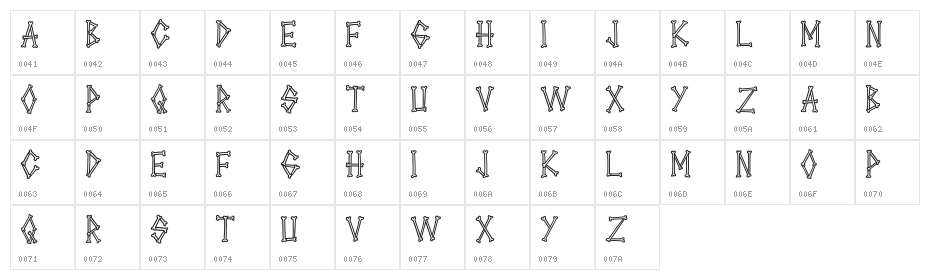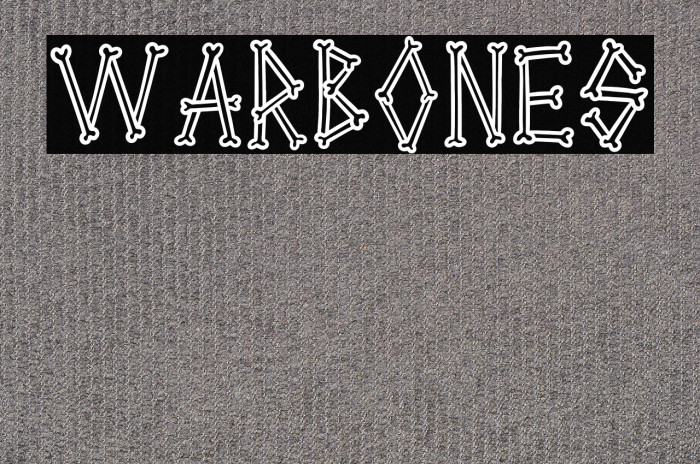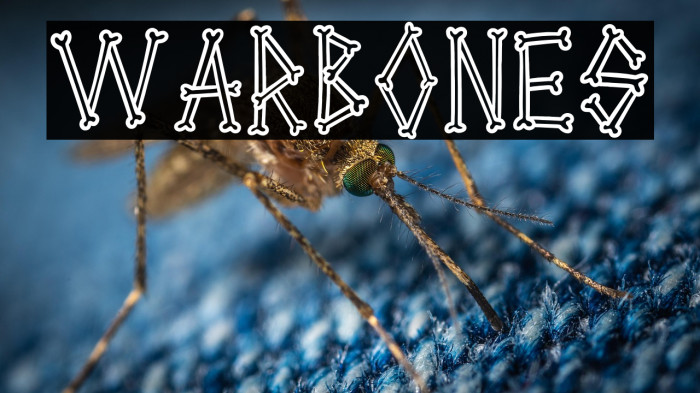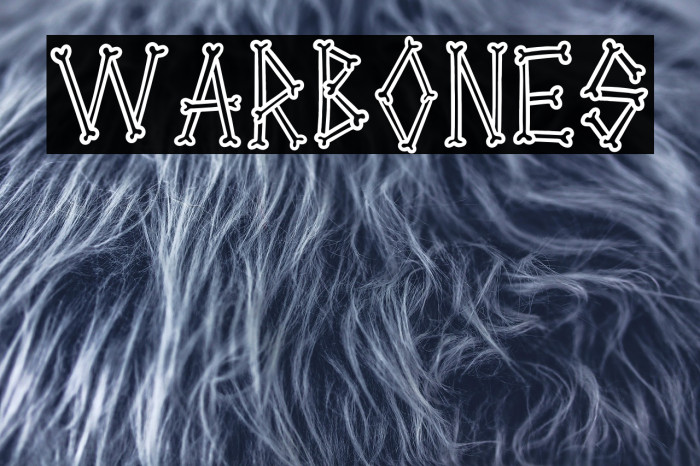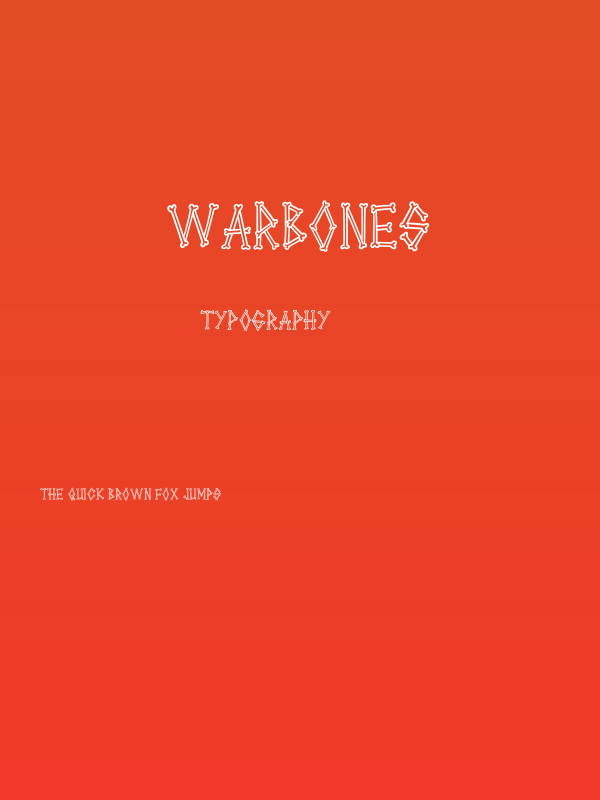
Warbones Font
Warbones Description
This font features a unique and playful design where each character is constructed to resemble bones. The letters are composed of straight lines with rounded ends, mimicking the appearance of skeletal structures. This creates a distinctive and slightly eerie aesthetic, making it ideal for themes related to horror, Halloween, or anything that requires a spooky touch. The uppercase letters are consistent in style, with each character maintaining a uniform height and width, contributing to a cohesive look. The font's decorative nature makes it stand out, capturing attention with its bold and thematic design.
| Proposed Projects | Ideal for Halloween invitations, horror-themed posters, or any project requiring a spooky, eye-catching font. |